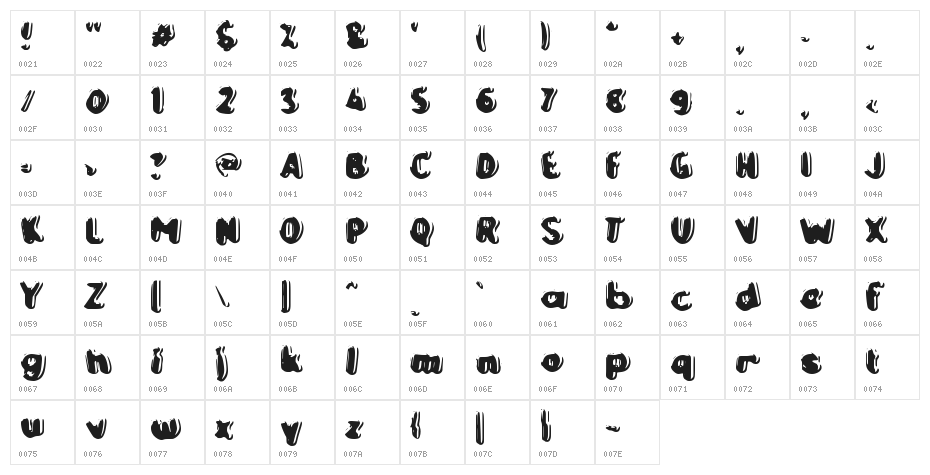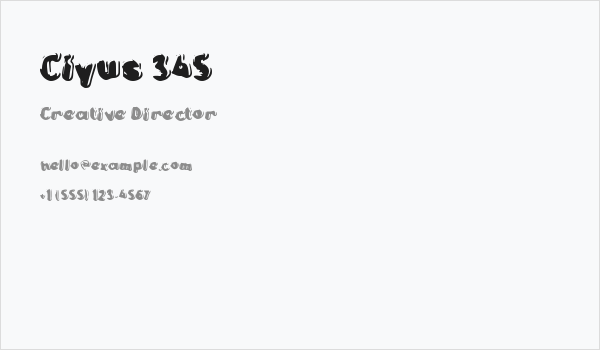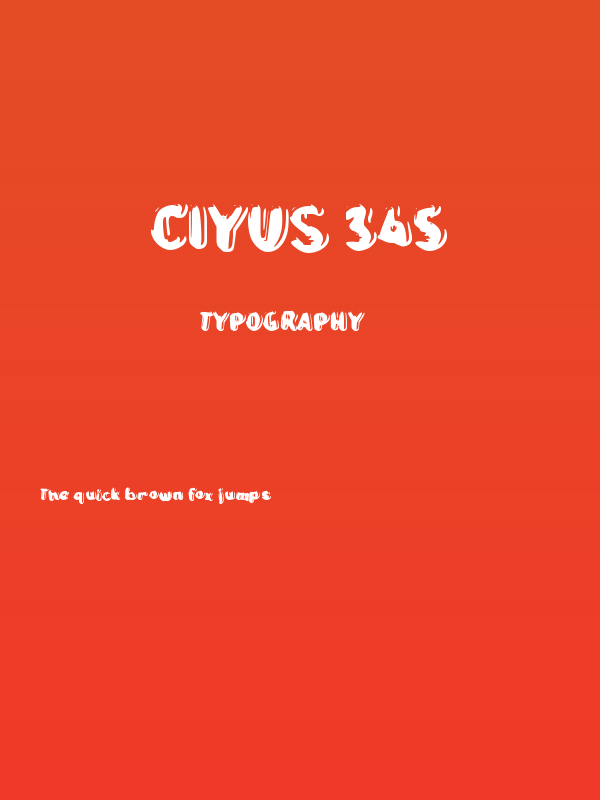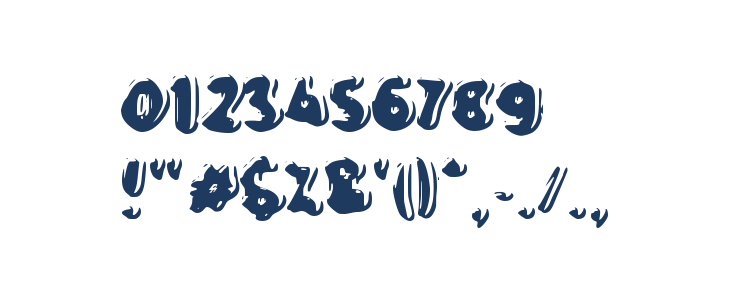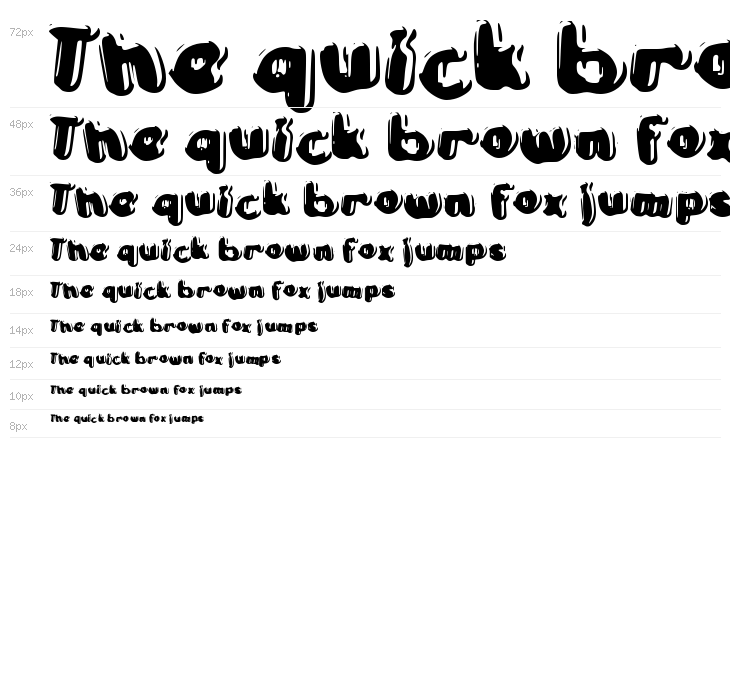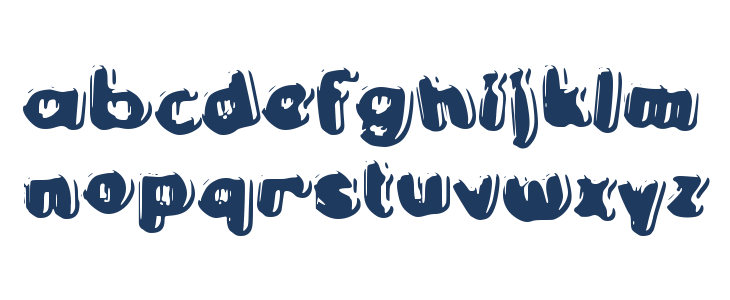
Ciyus 345 Font
Ciyus 345 Description
This font features a bold and dynamic style with a playful, artistic flair. The characters are heavily stylized with thick strokes and irregular edges, giving a sense of movement and energy. The design incorporates a brush-like texture, adding a handcrafted feel. The uppercase and lowercase letters maintain a consistent visual theme, while the numbers and special characters complement the overall aesthetic. This font is eye-catching and full of personality, making it ideal for creative projects.
CIYUS-345 UPPERCASE
CIYUS-345 LOWERCASE
CIYUS-345 OTHER CHARS
| Proposed Projects | Ideal for posters, album covers, branding, and any project requiring a bold, artistic touch. |